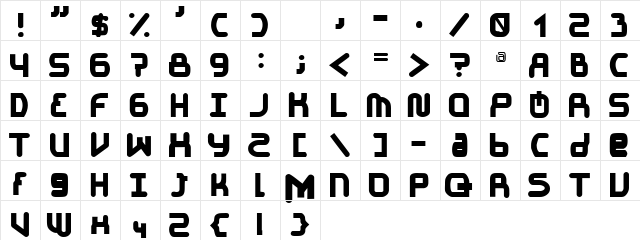
el Jay mixmix Bold
Design Context for el Jay mixmix Typeface
el Jay mixmix is a composed and adaptable typeface that performs quietly and consistently across a wide range of design contexts. Its bold stroke weight gives it real presence on the page.